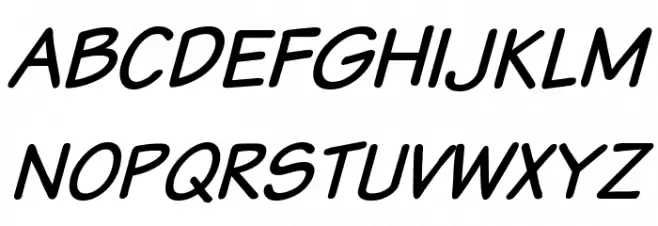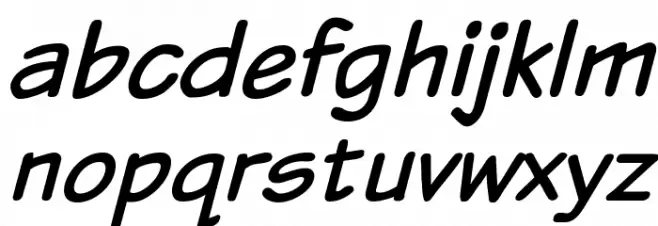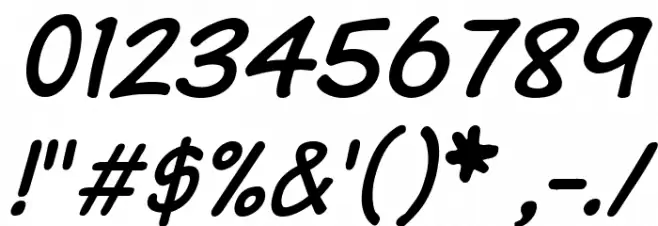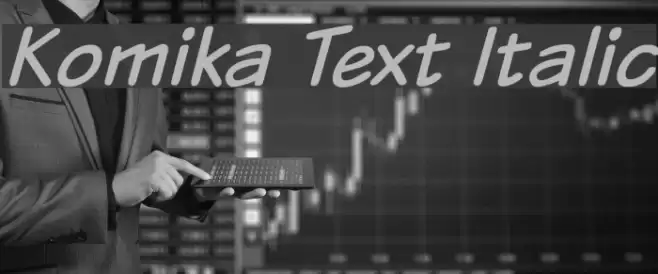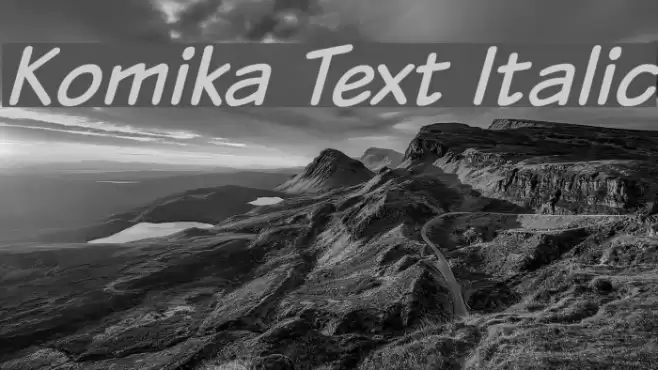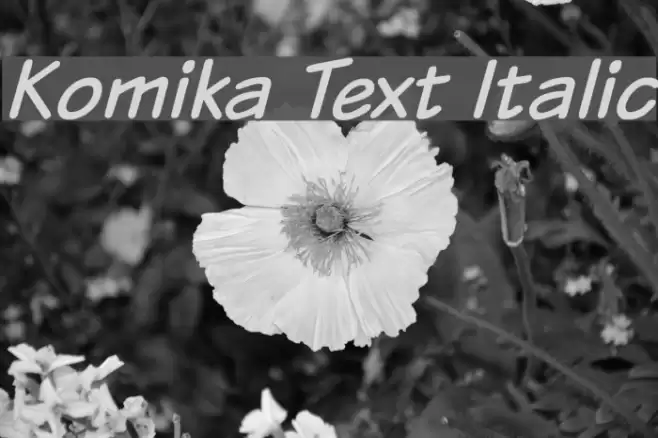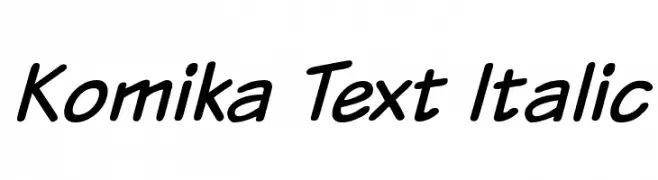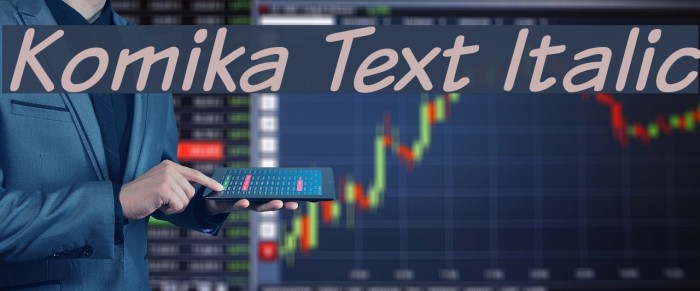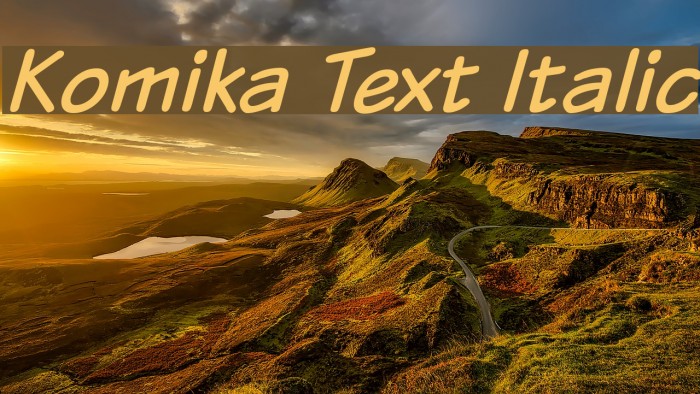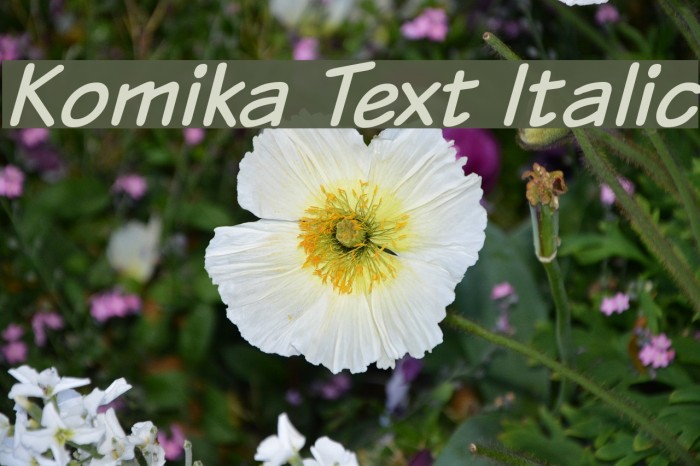
Komika Text Italic
This font features a playful and dynamic style with a handwritten appearance. The letters are slightly slanted, giving it an italicized look that adds a sense of motion and energy. The strokes are smooth and rounded, contributing to a friendly and approachable feel. The uppercase and lowercase letters maintain a consistent style, with a slight variation in size and shape that enhances its casual aesthetic. Numbers and special characters are designed to match the overall style, ensuring uniformity across all text elements. The font's informal nature makes it suitable for projects that require a personal touch.
A playful, italicized handwritten font with smooth, rounded strokes.
- Proposed Projects: Ideal for comic strips, children's books, informal invitations, and playful branding.
- Overall Style: Casual
- Use Case: Headlines, Logos, Informal Text